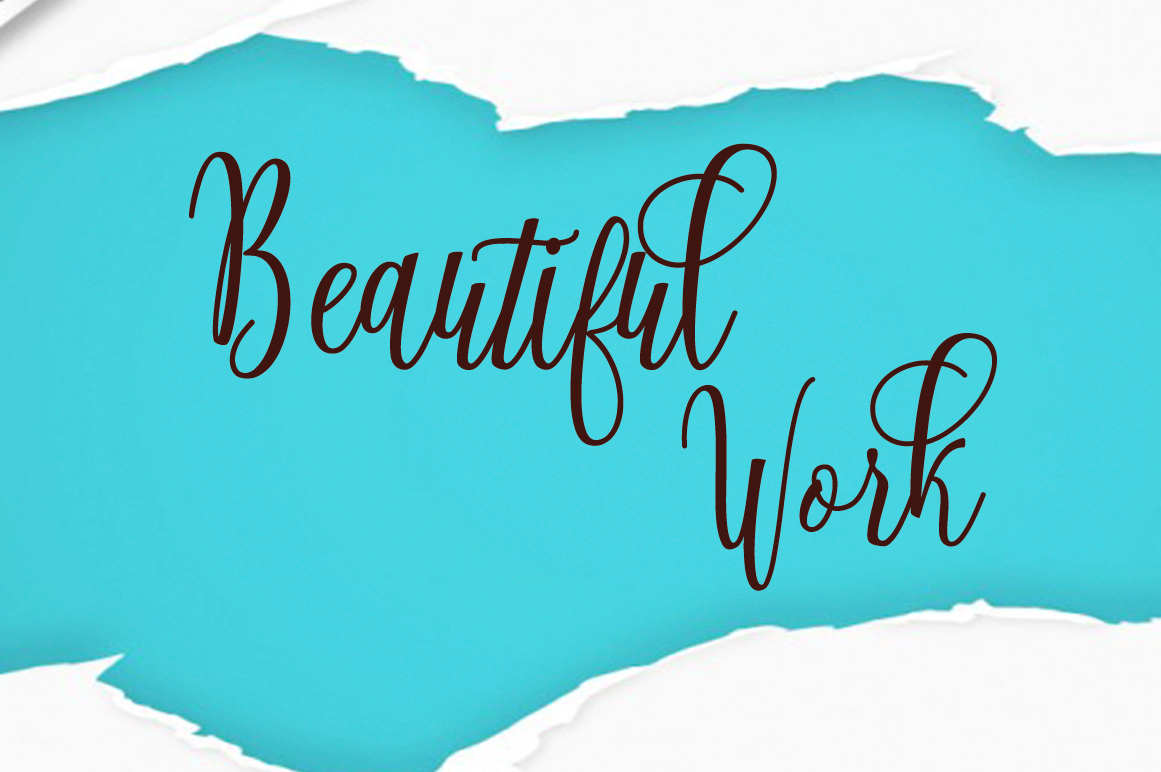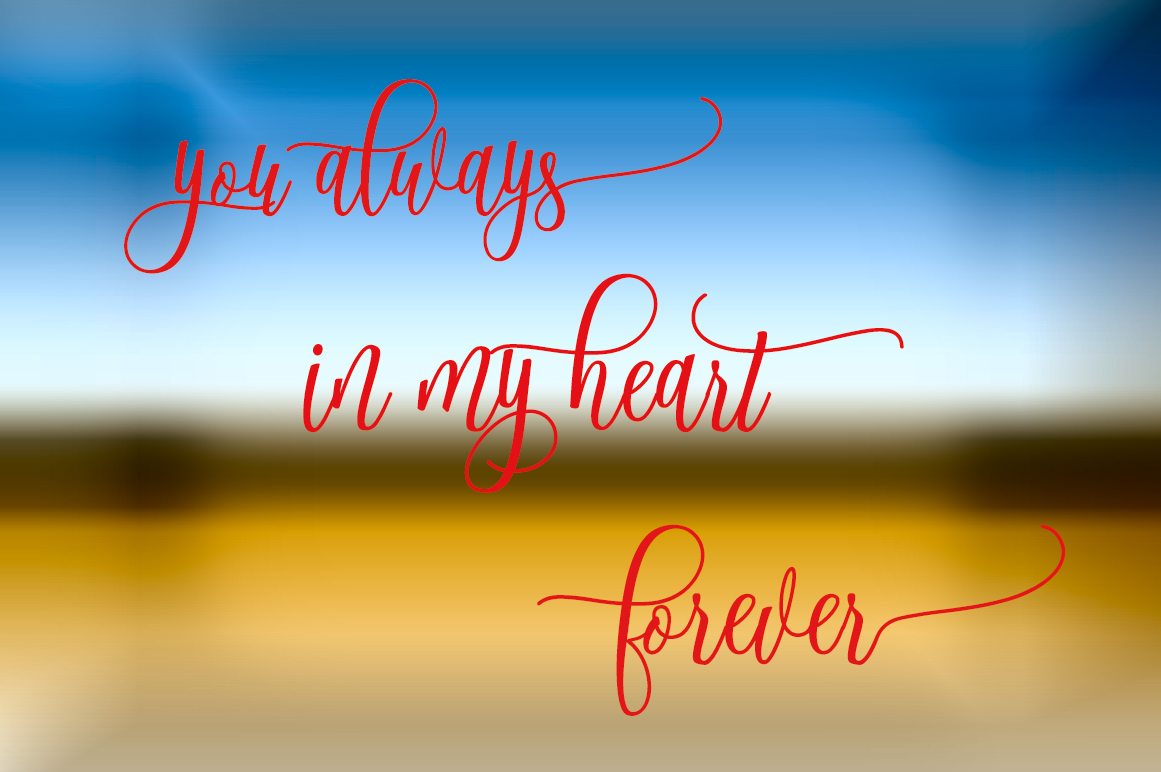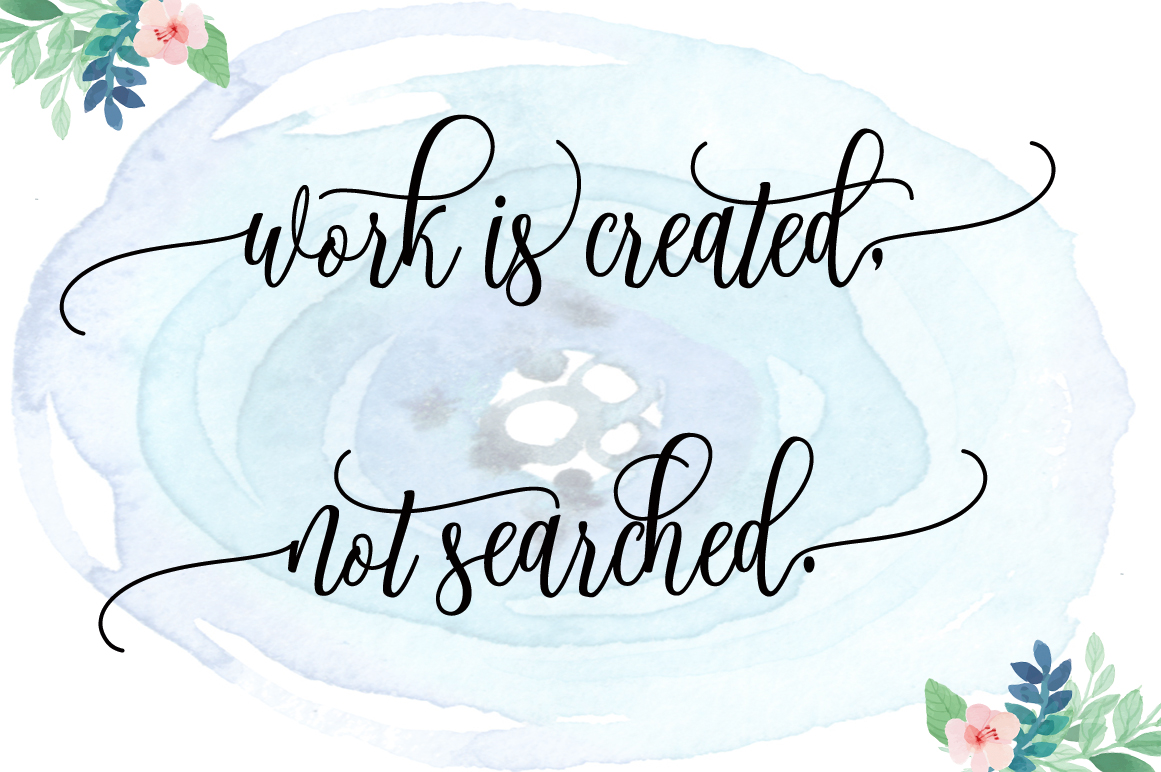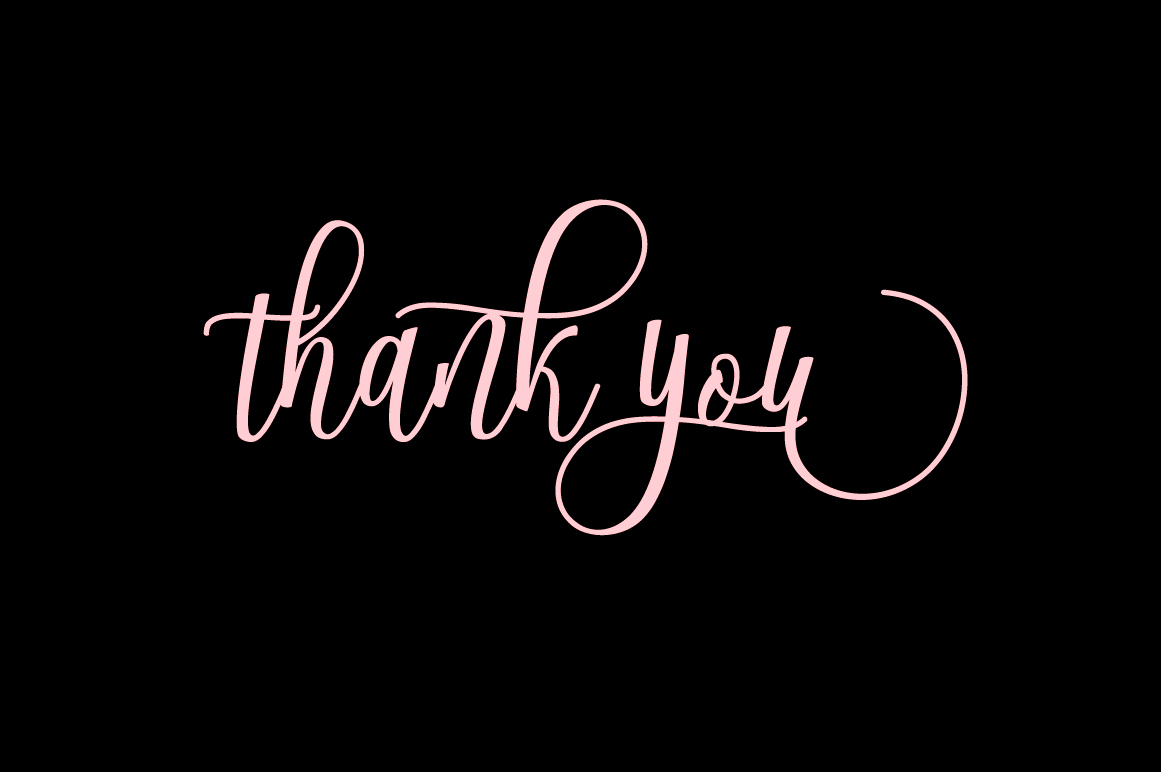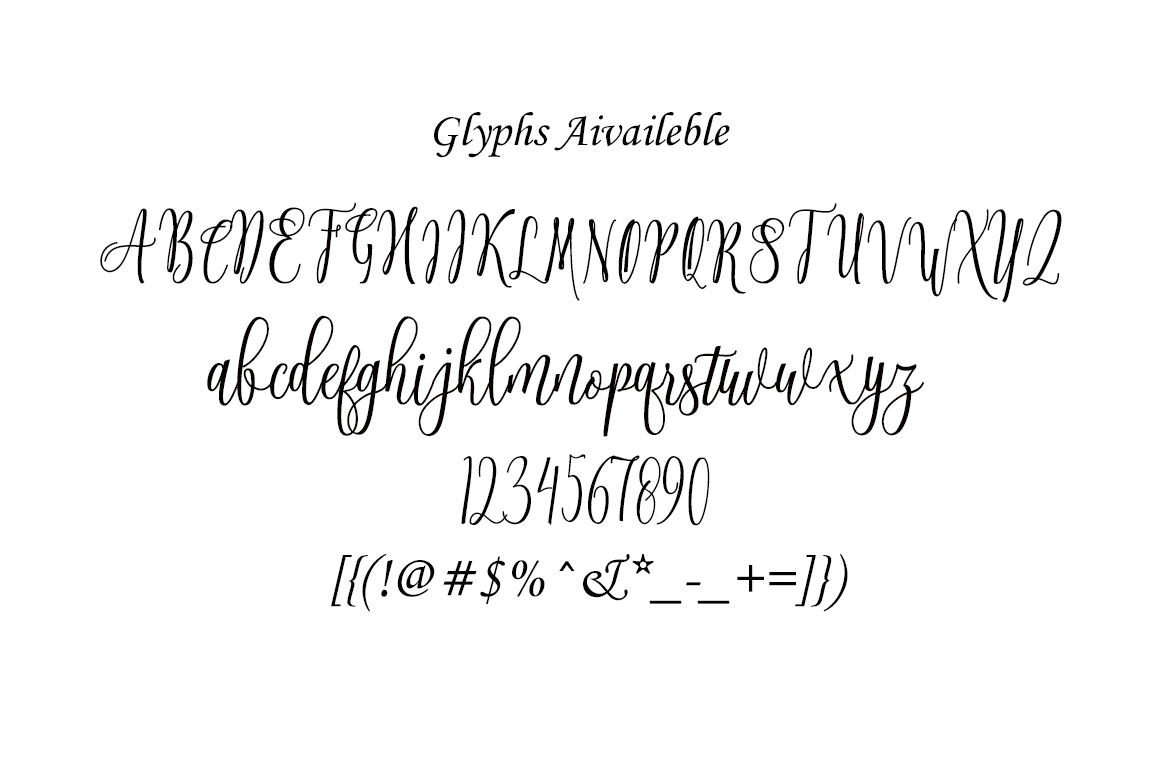
Introducing Connekia Font: The Lively Script that Brings Joy to Your Designs
Are you tired of using the same old fonts in your designs? Look no further than Connekia, a uniquely formed calligraphy font that is sure to add a touch of personality to your work. Described as lively and modern, Connekia is a script that happily dances across your designs, bringing a sense of joy and whimsy to your creations.
The Characteristics of Connekia Font
So, what makes Connekia stand out from the crowd? Here are just a few of its key characteristics:
- Lively and Modern: Connekia is a script that exudes energy and movement. Its lively and modern feel makes it perfect for designers who want to add a touch of personality to their work.
- Clean and Elegant: Despite its playful nature, Connekia is a clean and elegant font that is easy to read and works well in a variety of contexts.
- Uniquely Formed: Connekia’s unique calligraphy style sets it apart from other fonts. Its distinctive letterforms are sure to make your designs stand out.
Why Designers and Crafters Love Connekia
Connekia has quickly become a favorite among designers and crafters, and for good reason. Here are just a few reasons why:
- Versatility: Connekia is a versatile font that works well in a variety of contexts, from branding and advertising to packaging and digital design.
- Ease of Use: Connekia is easy to use and pairs well with a wide range of other fonts, making it simple to incorporate into your existing design workflow.
- Emotional Connection: Connekia’s lively and playful nature helps to create an emotional connection with your audience, making it perfect for designers who want to create a lasting impression.
How to Use Connekia in Your Designs
Ready to add Connekia to your font collection? Here are a few tips for using this beautiful script in your designs:
- Pair it with Bold Fonts: Connekia pairs perfectly with bold, sans-serif fonts. Try pairing it with a font like Arial Black or Impact for a striking contrast.
- Use it for Headlines: Connekia is perfect for headlines and titles. Its lively and playful nature makes it a great choice for grabbing attention and drawing the eye.
- Experiment with Colors: Connekia looks great in a variety of colors. Experiment with different hues and shades to find the perfect look for your design.
Connekia is a beautiful, lively script that is sure to add a touch of personality to your designs. With its clean and modern feel, uniquely formed calligraphy style, and versatility, it’s no wonder that Connekia has quickly become a favorite among designers and crafters. Whether you’re looking to add a little whimsy to your branding, create a striking headline, or simply want to try something new, Connekia is a great choice. So why not give it a try and see the difference it can make in your designs?